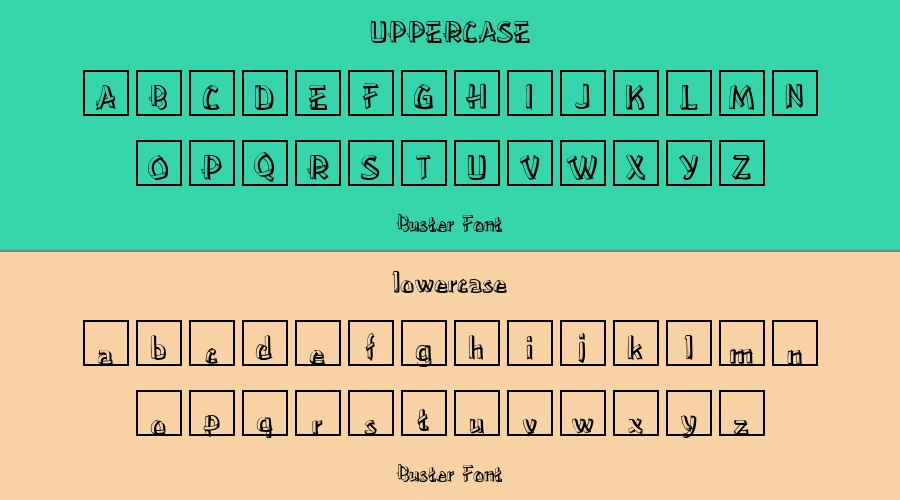
About Buster Font
When typographic excellence matters most, Buster Font delivers through its thoughtful blend of graceful transitions and distinctiveness. Specially crafted for engineering specs, it offers the durability and cultural relevance required for sophisticated design work. Every detail serves a purpose.
The character set showcases thoughtful details like balanced weights alongside functional discretionary ligatures. This proves especially valuable in reference books, where small cap rendering directly influences results. Particular attention was paid to spine curvature and historical reference during development.